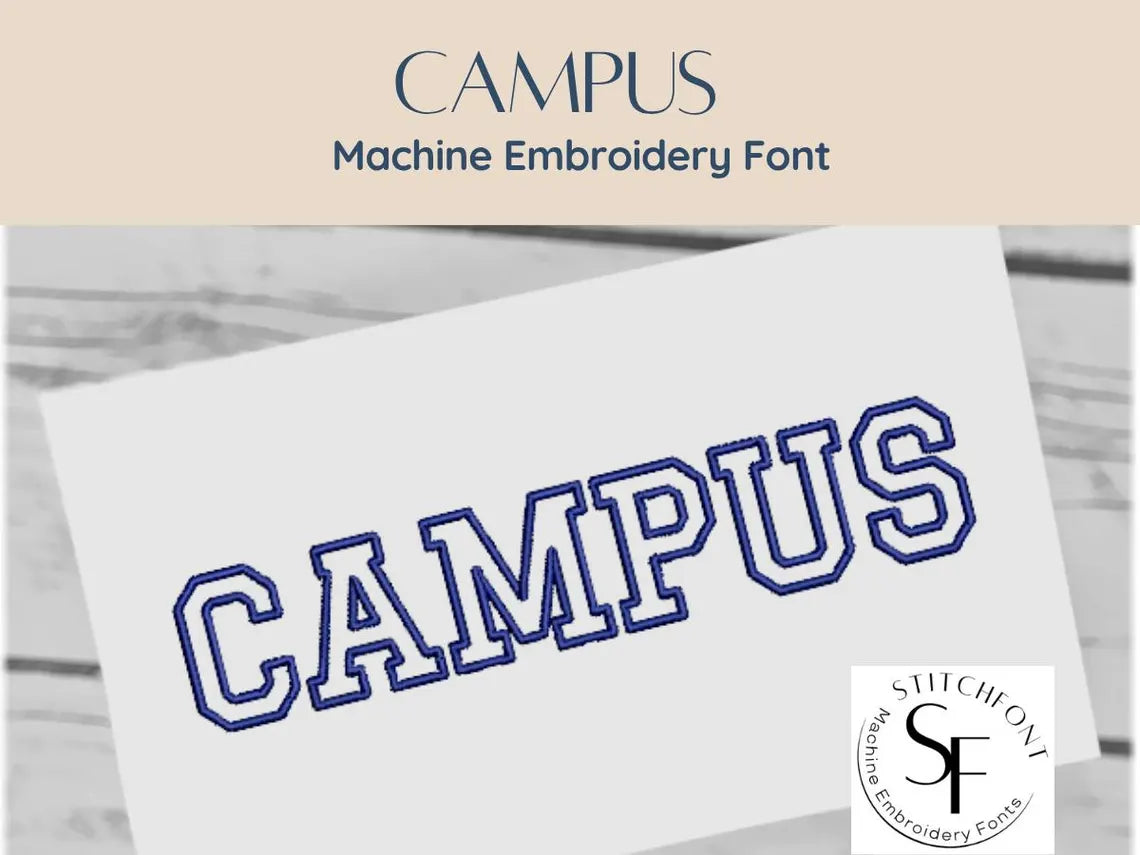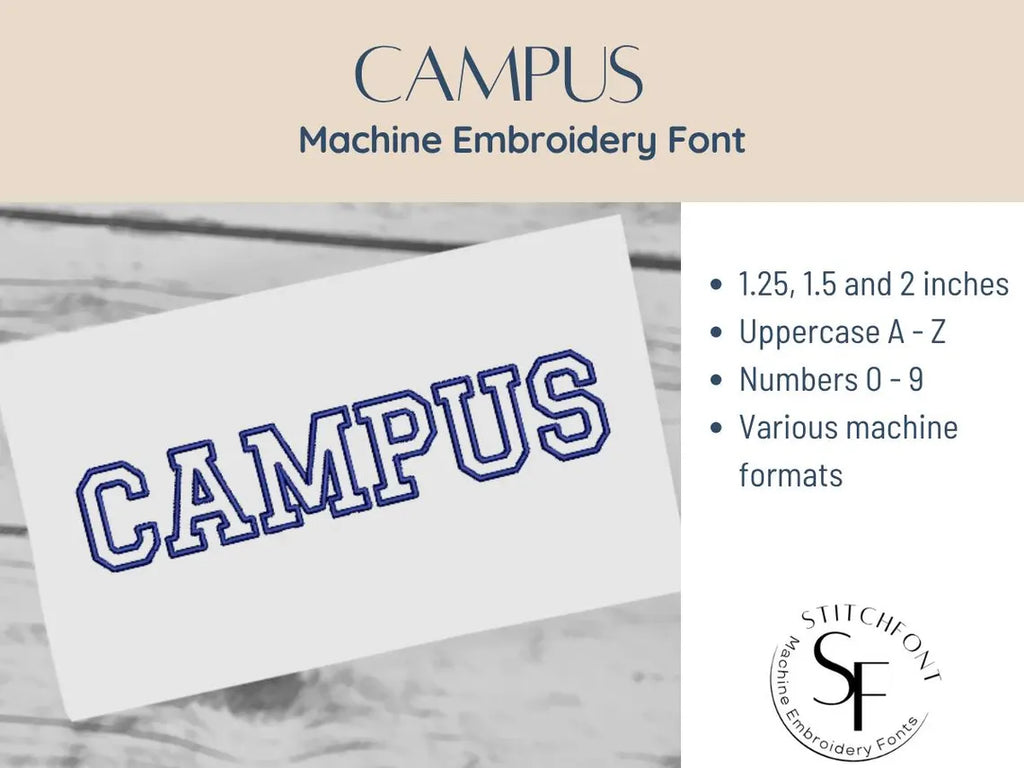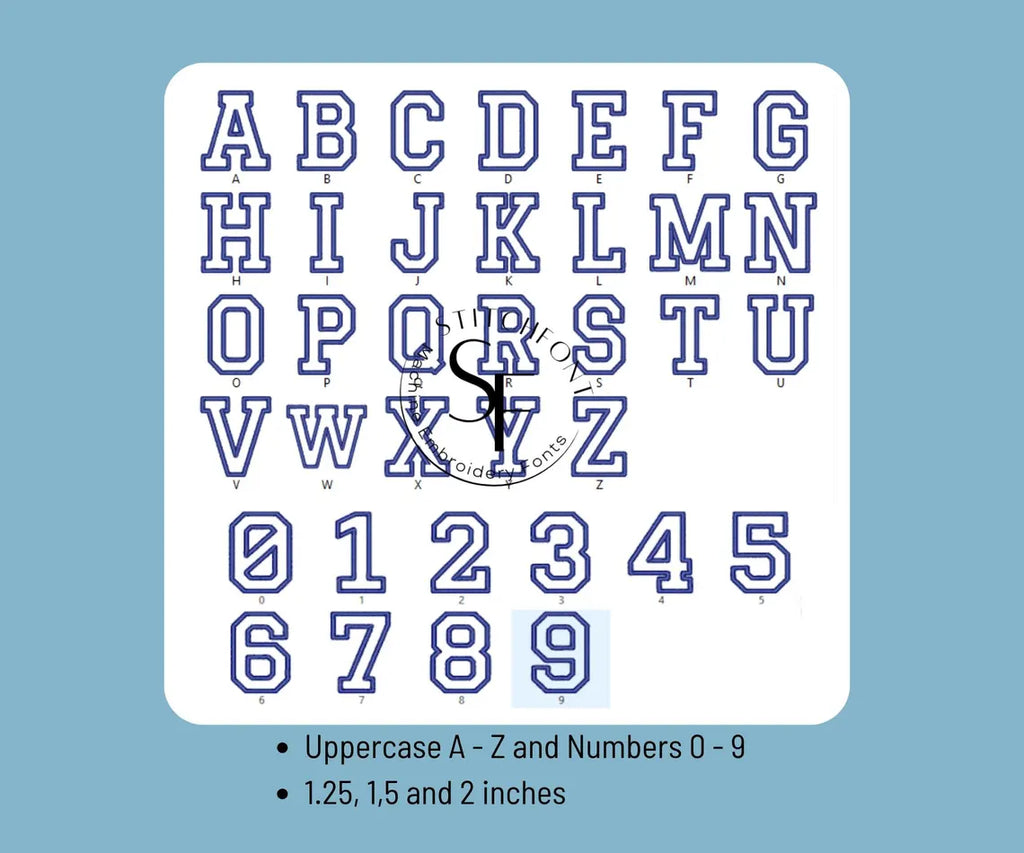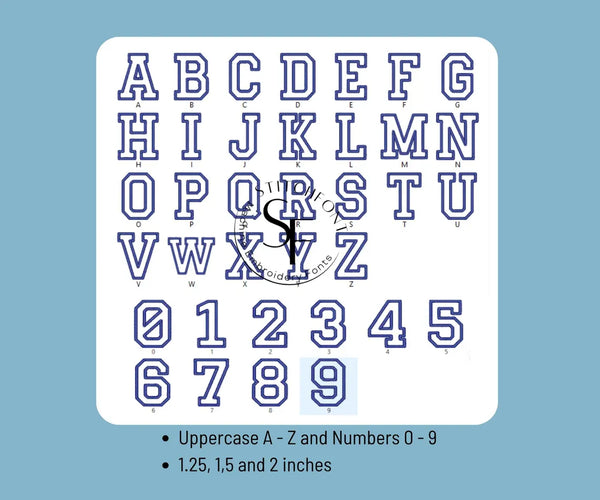
Machine Embroidery Satin Font Alphabet - Campus Outline - 3 sizes - 8 formats
๐ Campus Outline Embroidery Font โ Bold School Spirit in Every Stitch! ๐
Bring a varsity vibe to your embroidery with the Campus Outline Font โ a classic, collegiate-style font perfect for sports gear, spirit wear, and standout monograms. With clean lines and bold outlines, this satin stitch font is a must-have for team projects and back-to-school designs!
* Satin Stitch for bold, smooth outlines
โจ Perfect For:
* School spirit items & team gifts
* Personalized duffel bags, jerseys, and hats
* Graduation and back-to-school projects
๐ Why Youโll Love It:
* Bold, clean stitching with athletic style
* Easy-to-read lettering that stands out